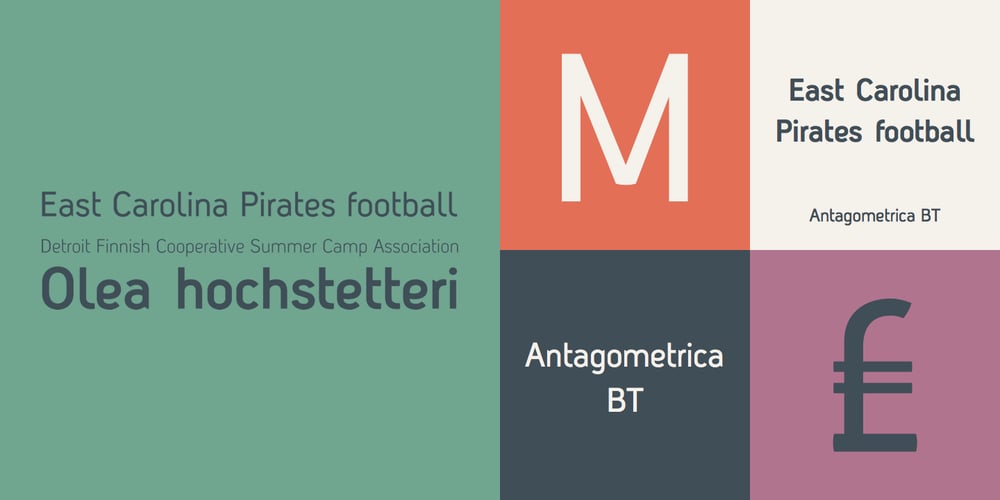
Antagometrica BT
Antagometrica BT font
Antagometrica BT Font Family was designed by Maximiliano Giungi and published by Bitstream. Antagometrica BT contains 3 styles and family package options. Antagométrica BT is the creation of Argentine designer Maximiliano Giungi. A clean and slightly condensed sanserif, it is ideal for use in text settings, but its trendy design makes it distinctive enough for display work. The CFF OpenType glyph repertoire includes additional ligatures, full sets of superior and inferior figures as well as unlimited fractions. There are also tabular and proportional figure sets, and the extended glyph set supports Central Europe.